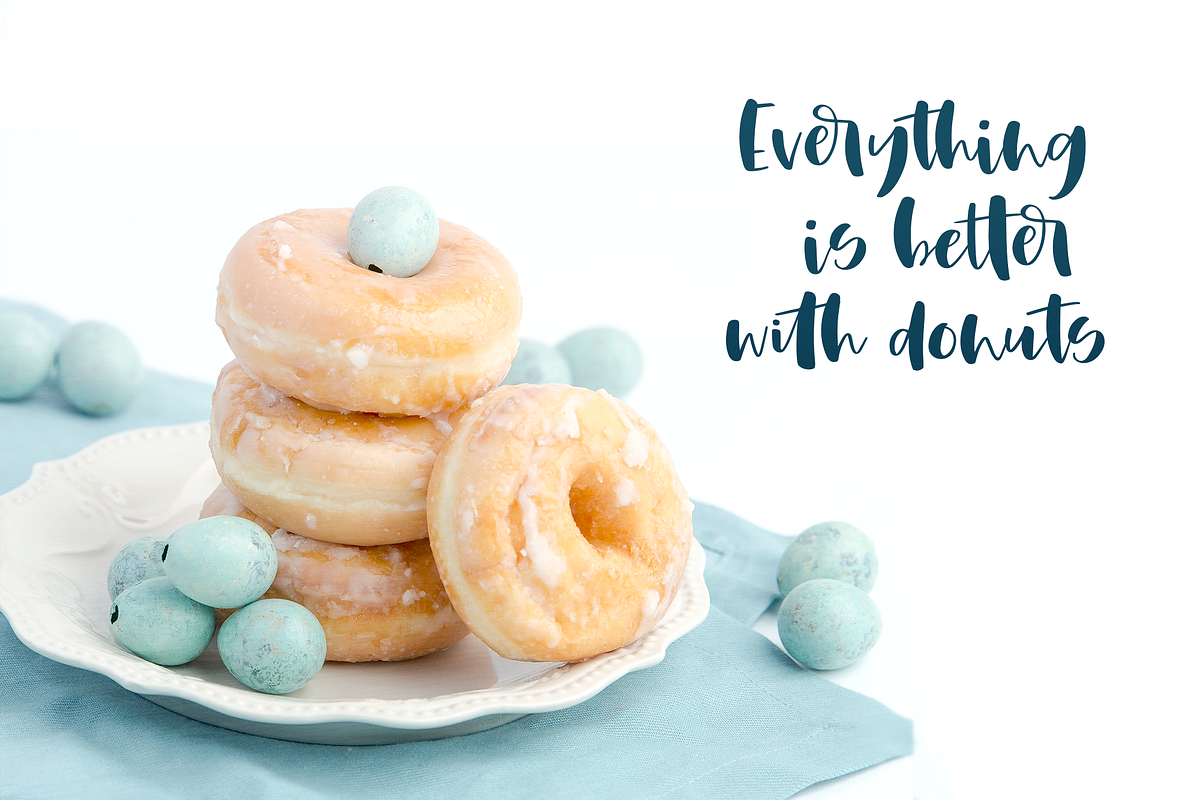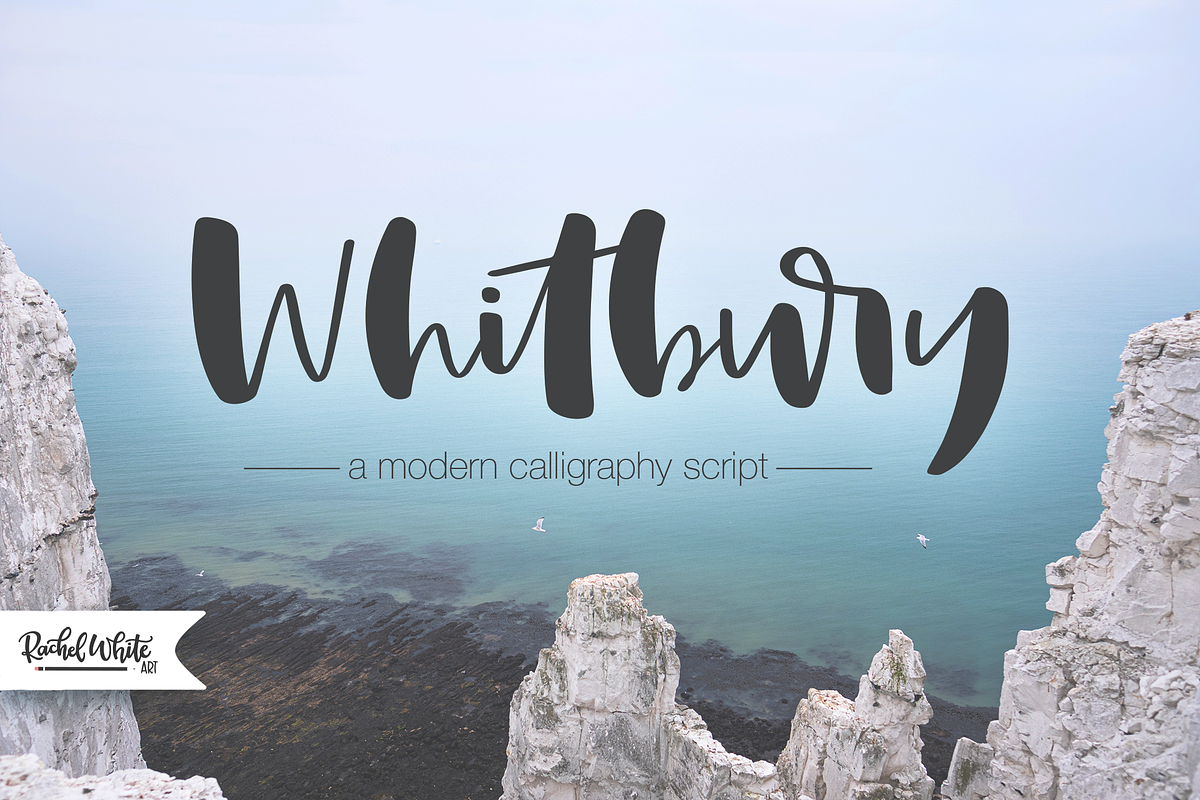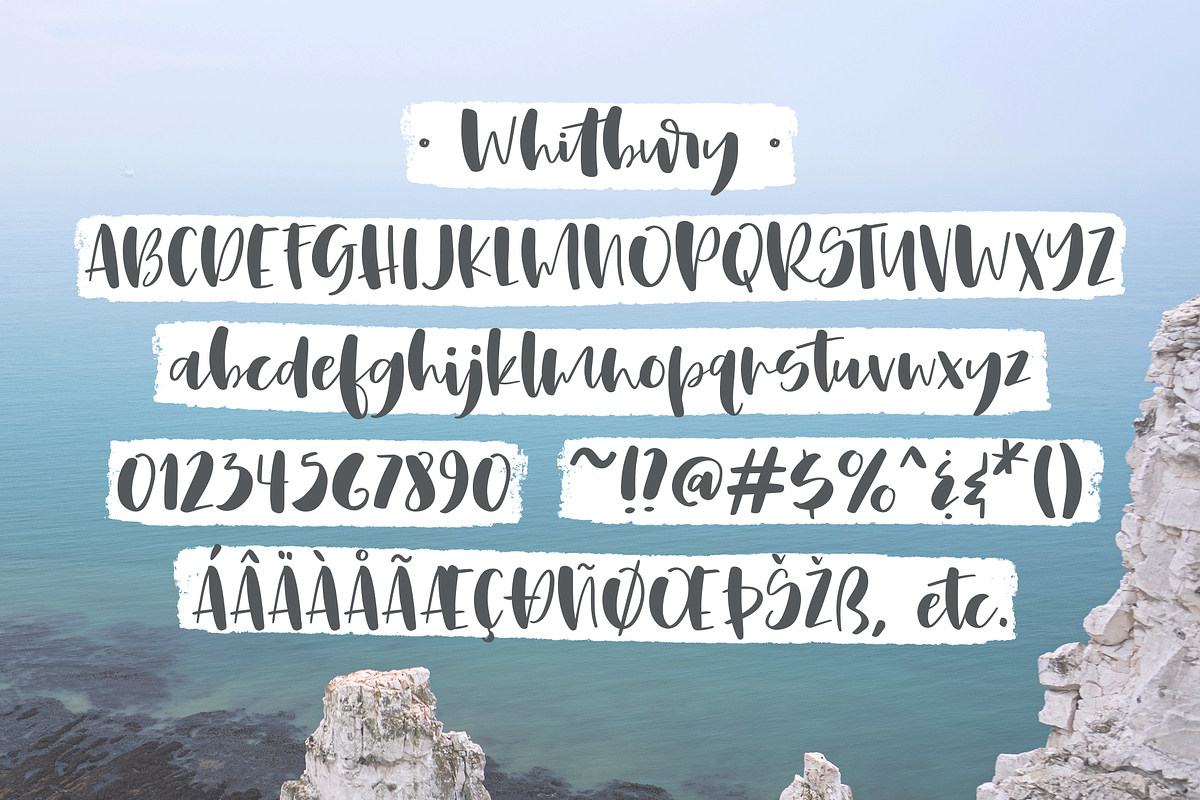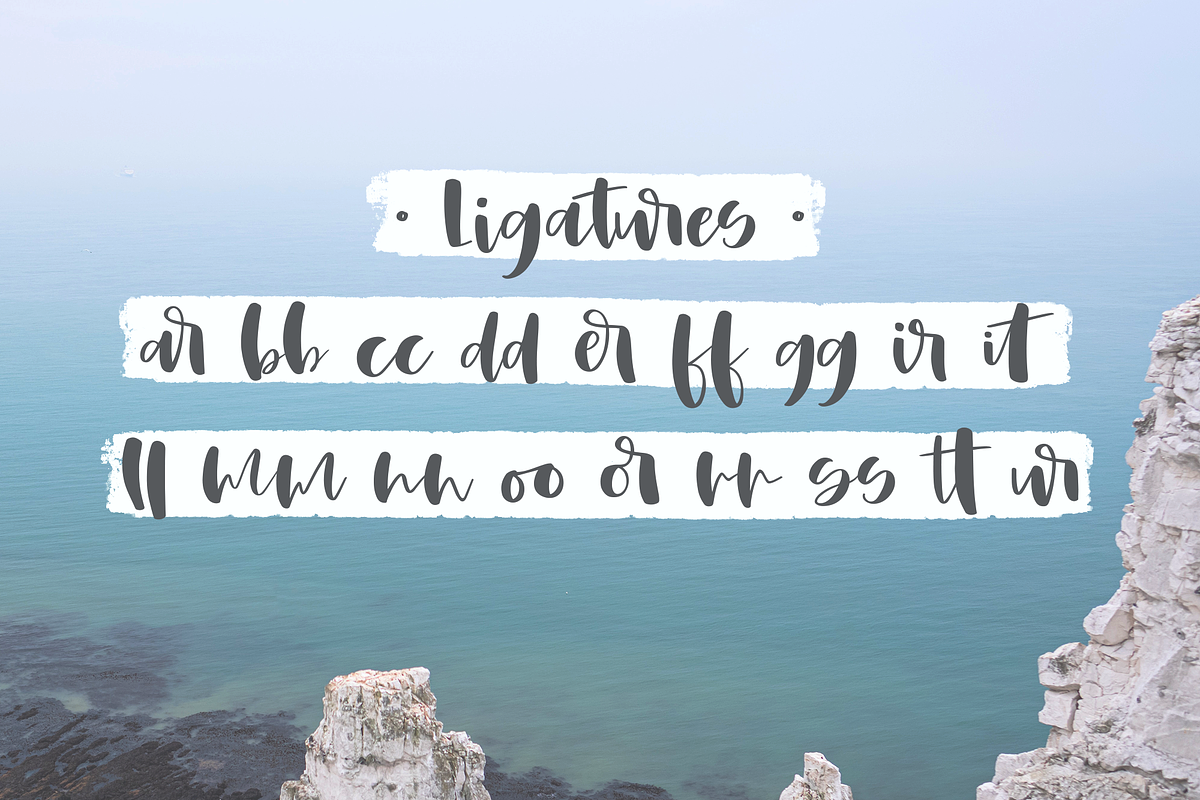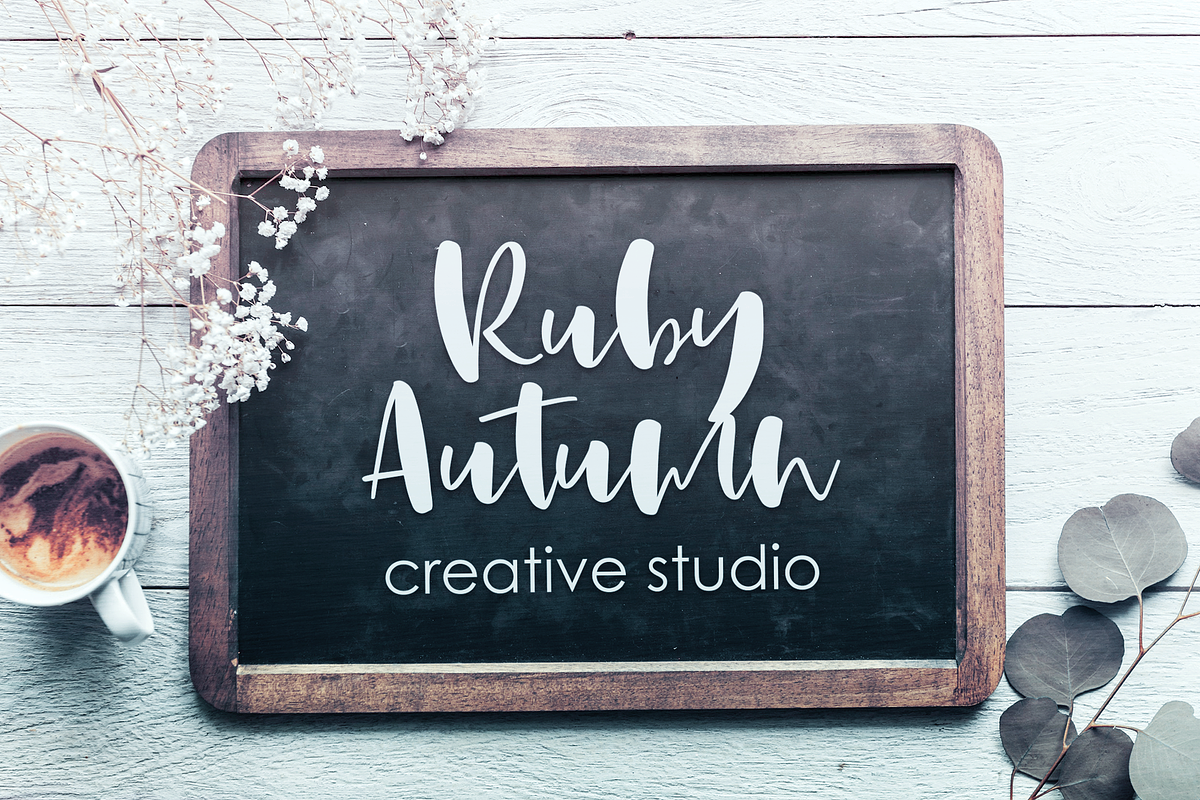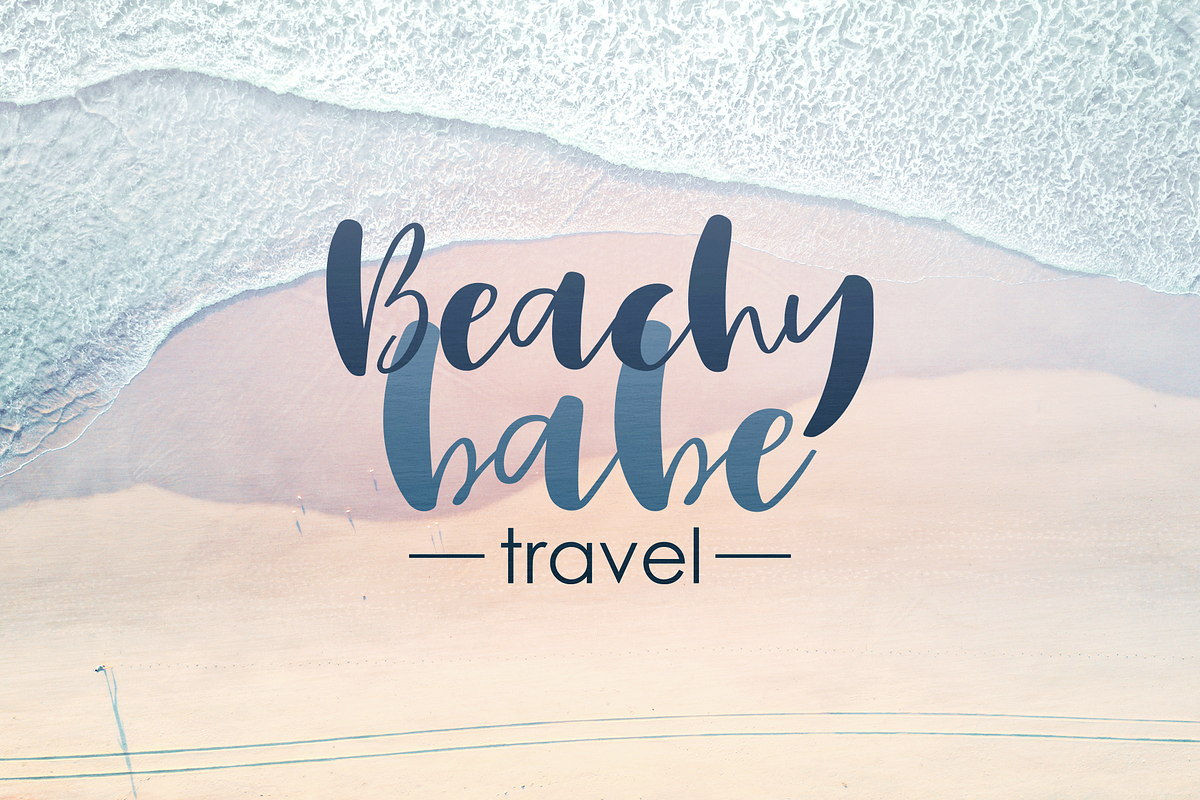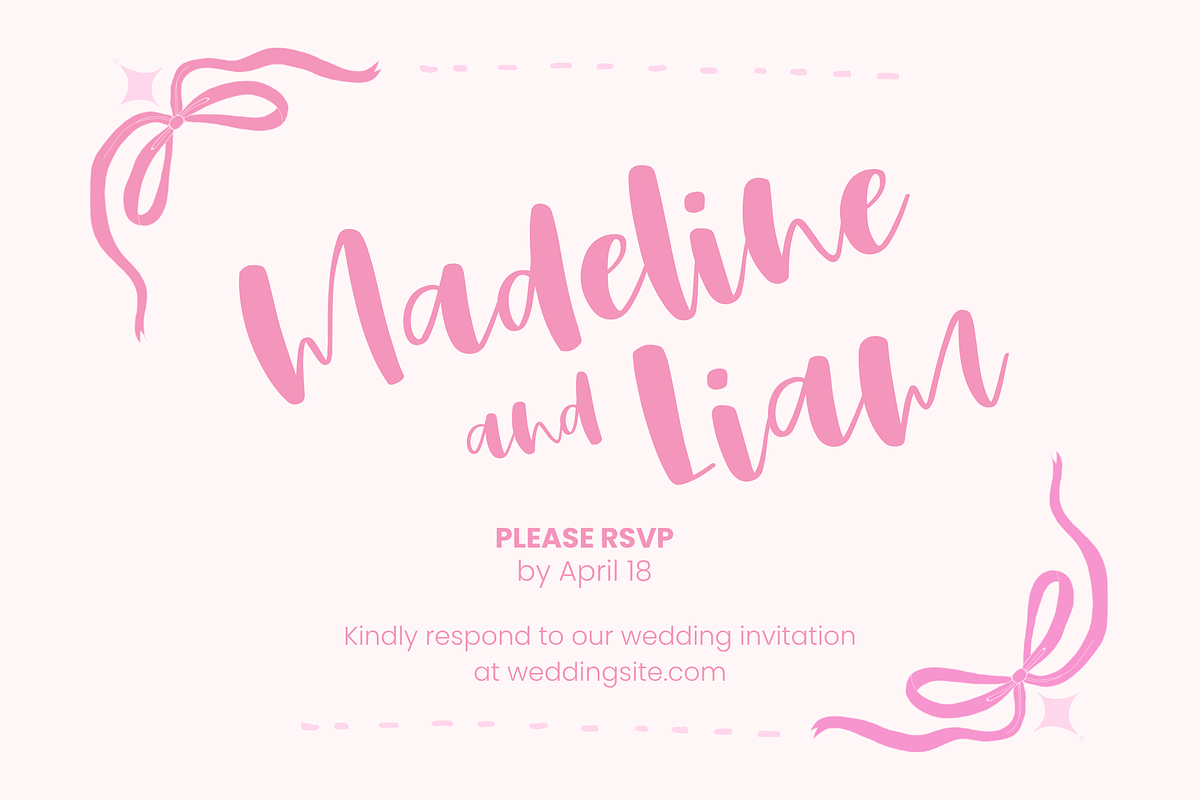
Whitbury, a modern calligraphy font
Whitbury is a modern calligraphy font with a smooth, flowing style and heavy downstrokes that give it a bold, confident look. Perfect for branding, wedding invitations, social media, packaging, and logos, it adds just the right mix of elegance and personality.
With its graceful curves and clean execution, Whitbury shines in both formal and casual designs. Whether you're styling a boutique logo or a handwritten quote, this font brings a refined, modern flair to your work.